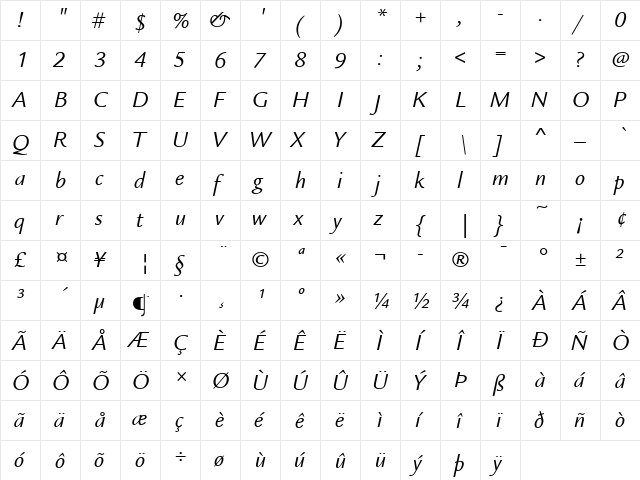
ITCLegacySans LT Book Italic Font Preview
Design Context for ITCLegacySans LT Book Typeface
ITCLegacySans LT Book offers clean, dependable letterforms without strong stylistic allegiance, making it a practical choice for designers who need flexibility. Its italic angle brings a sense of urgency and motion to the letterforms. The delicate stroke weight brings airiness and refinement to layouts.